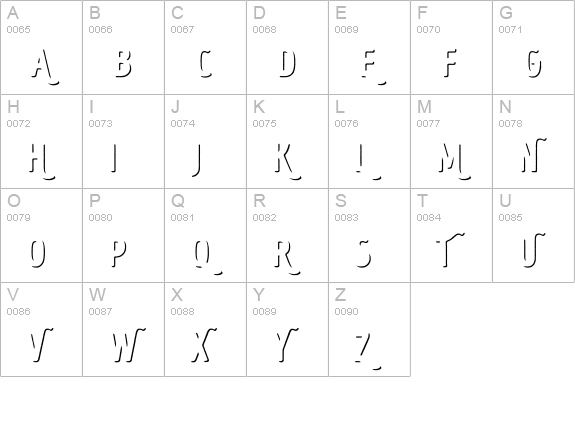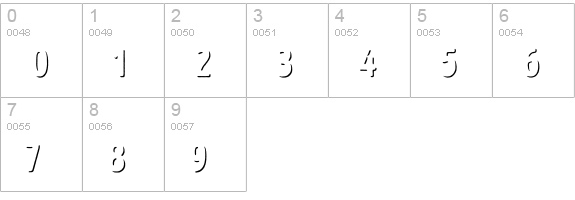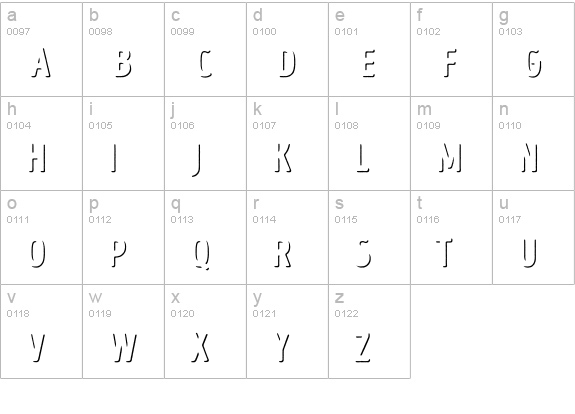
Intro Head B UC Shade Font Details
The Intro Head B UC Shade font is a stunning display typeface that exudes elegance and sophistication. Its intricate design and bold uppercase letters make it perfect for creating eye-catching headlines and titles. This font is versatile and can be used for a variety of design projects, from branding to editorial design. The unique shading effect adds depth and dimension to your text, making it stand out from the crowd. The best part about the Intro Head B UC Shade font is that it is completely free to download! You can get your hands on this beautiful typeface at FontsMarket.com and start using it in your projects right away. Don't miss out on this amazing opportunity to enhance your designs with this stylish and modern font. Download Intro Head B UC Shade today and take your creations to the next level!